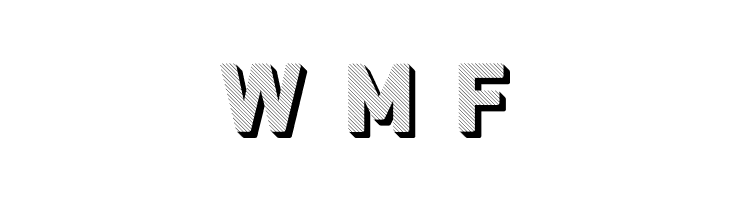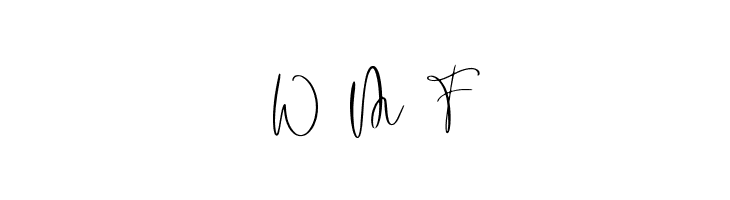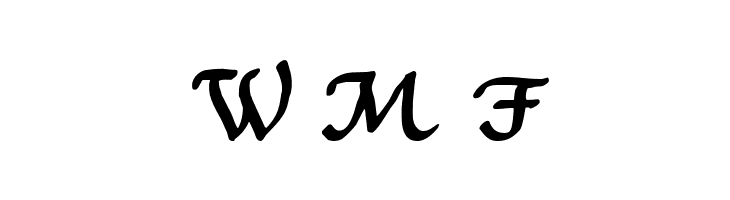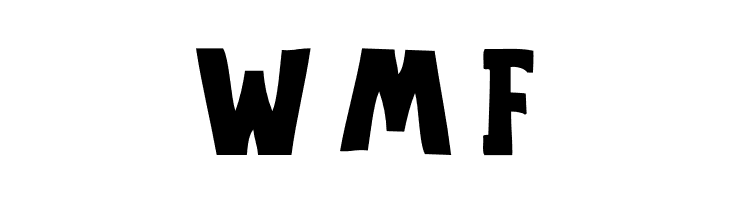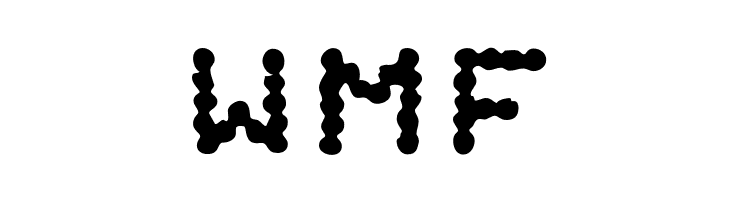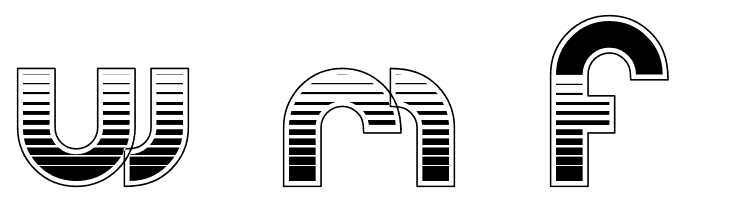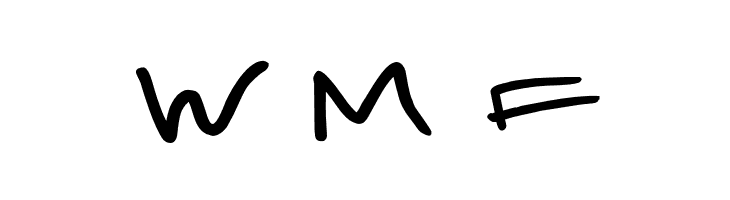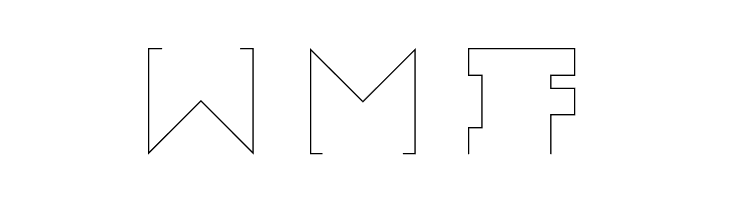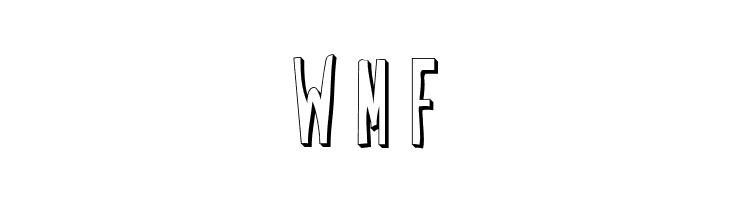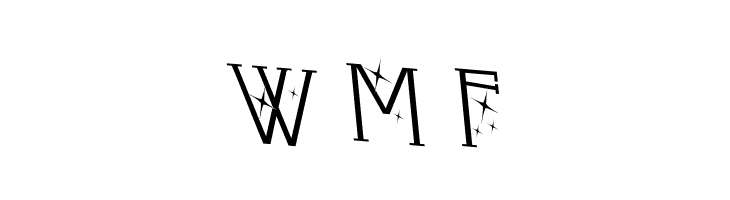
A lively, cursive font with a playful and artistic handwriting style.
A playful, handwritten font with dynamic strokes and a casual style.
A bold, geometric font with sharp angles and a modern industrial feel.
A bold, textured 3D font with a diagonal line pattern and shadow effect.
A textured, hand-drawn font with a playful and artistic style.
A bold, decorative font with intricate floral patterns in each character.
A bold, playful, hand-drawn font with a three-dimensional look.
A bold, retro font with a three-dimensional outline and vintage flair.
A bold, retro-inspired font with a striped pattern and geometric structure.
A playful, retro font with star-adorned, angular letters.
A geometric, modern font with sharp angles and a futuristic style.
A playful, bubble-like font with interconnected circles, ideal for creative projects.
A playful, robot-themed decorative font with bold, stylized characters.
A playful, robot-themed font with geometric shapes and a futuristic style.
A bold, hand-painted style font with expressive, uneven strokes.
A modern, sans-serif font with clean lines and excellent readability.
An artistic and decorative font with intricate swirls and curves.
A bold and dynamic script font with flowing letterforms and strong visual impact.
A modern, layered font with a digital, futuristic look.
A playful, casual handwritten font with smooth, flowing lines.
A distressed, grunge-style font with rough, hand-drawn edges.
A bold, playful handwritten font with rounded, uneven strokes.
An ornate and decorative font with intricate swirls and embellishments.
A decorative font with intricate swirls and artistic embellishments.
A casual, handwritten font with a thin, consistent stroke and slightly slanted characters.
A bold, dynamic font with sharp, angular edges and a fierce, energetic style.
A bold, dynamic font with a vintage poster style.